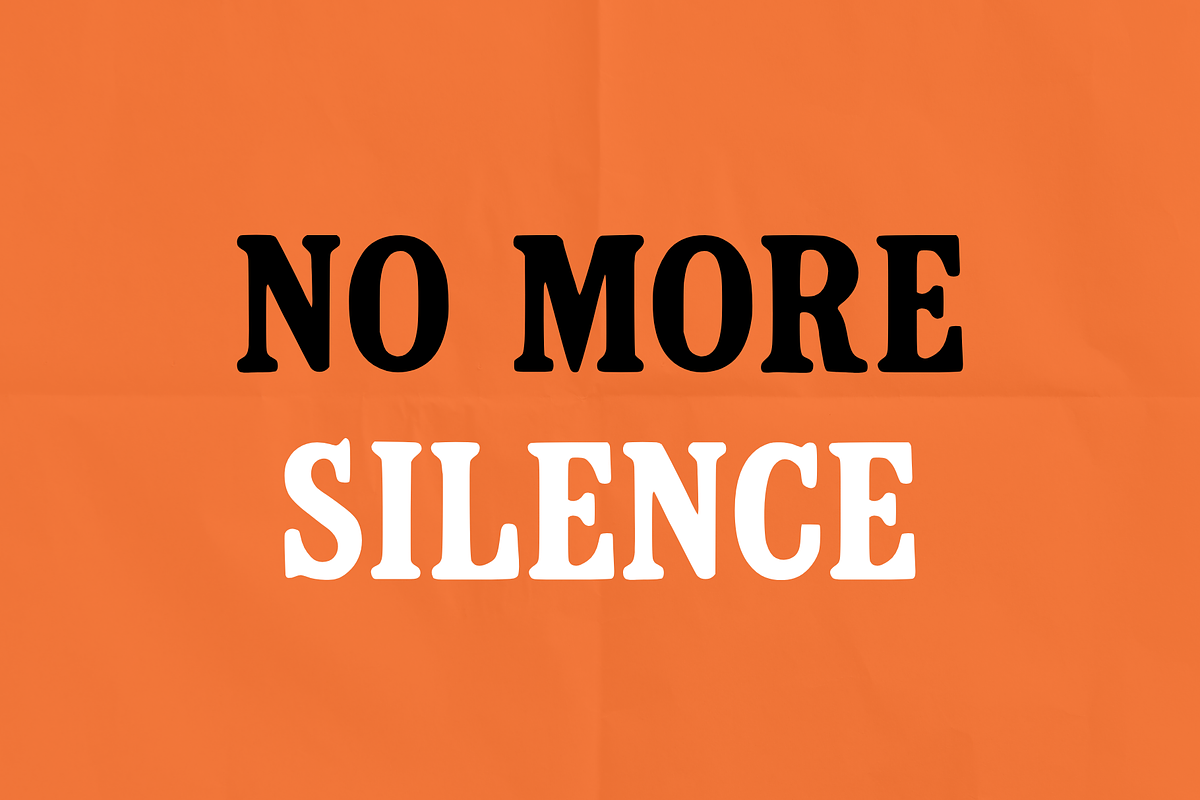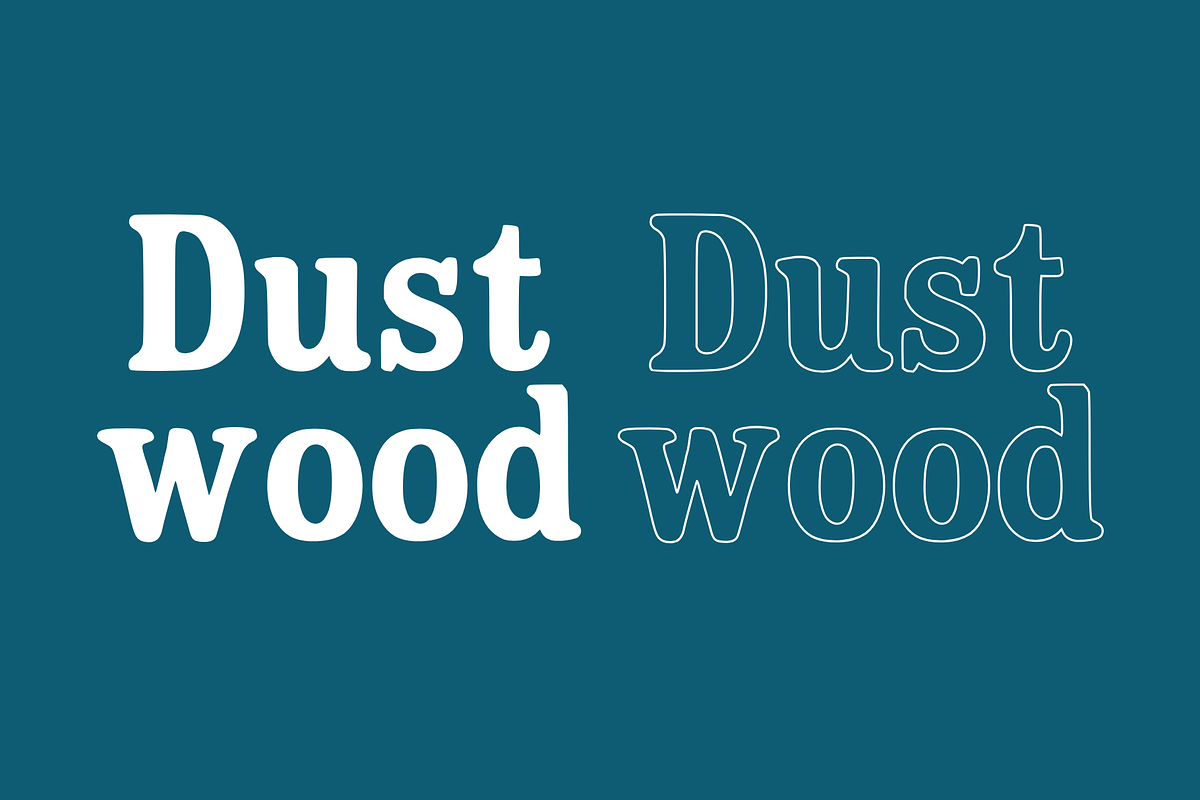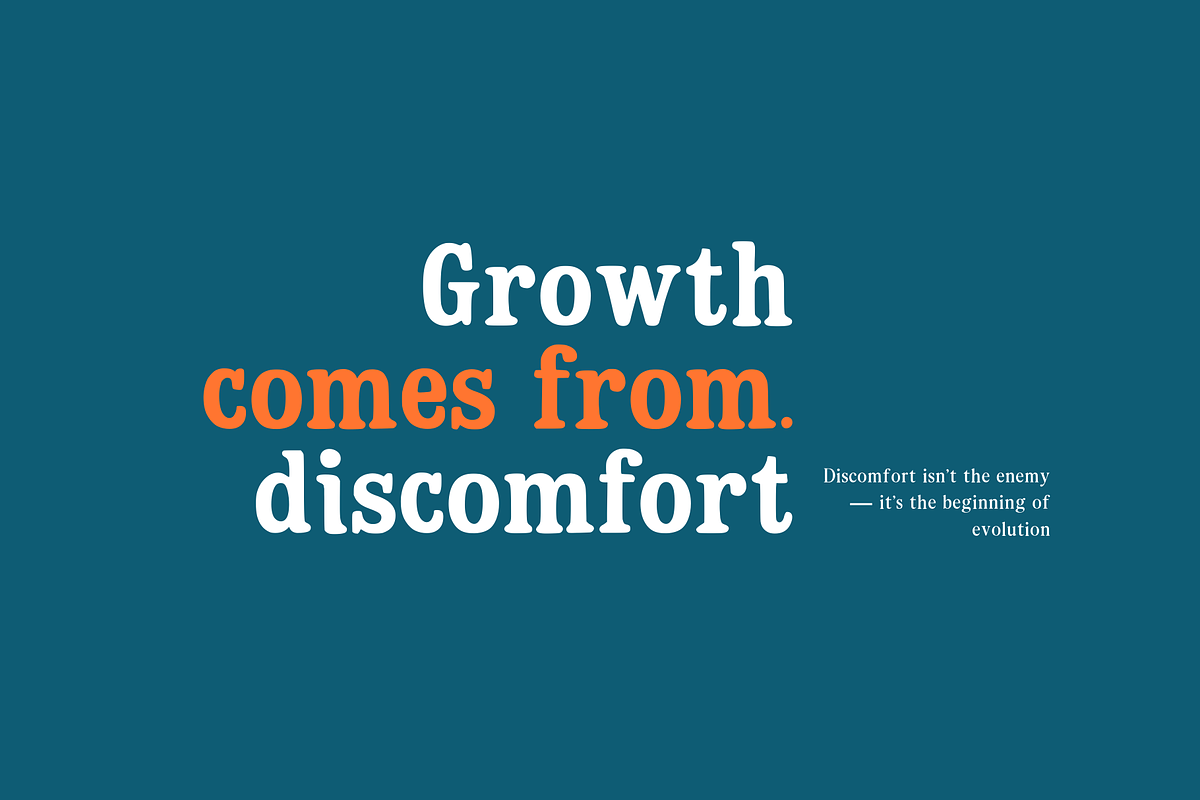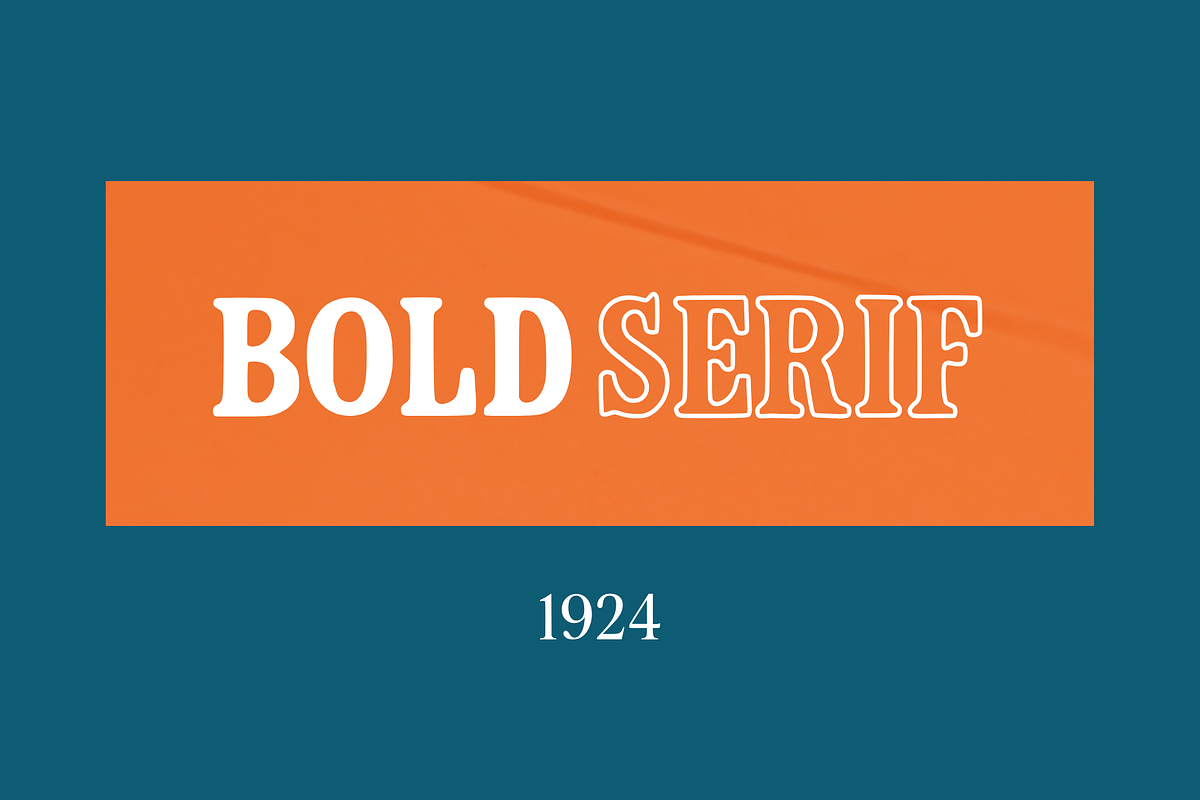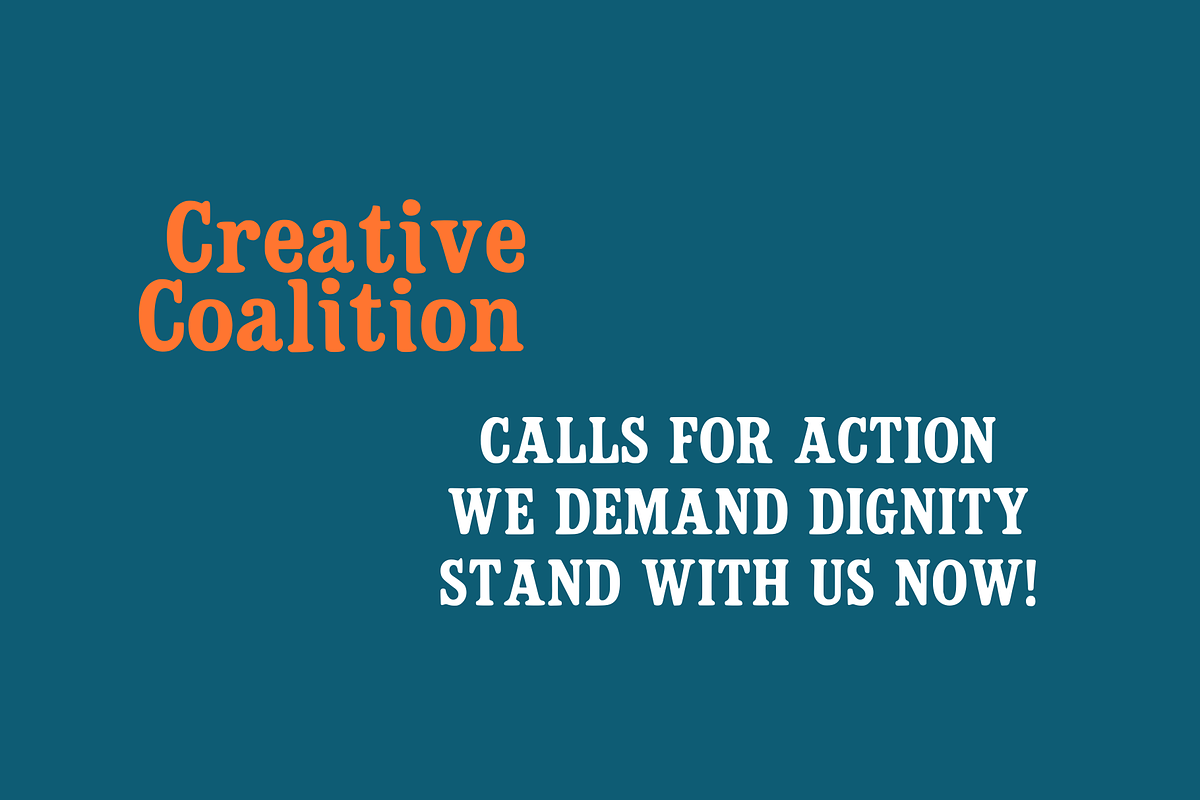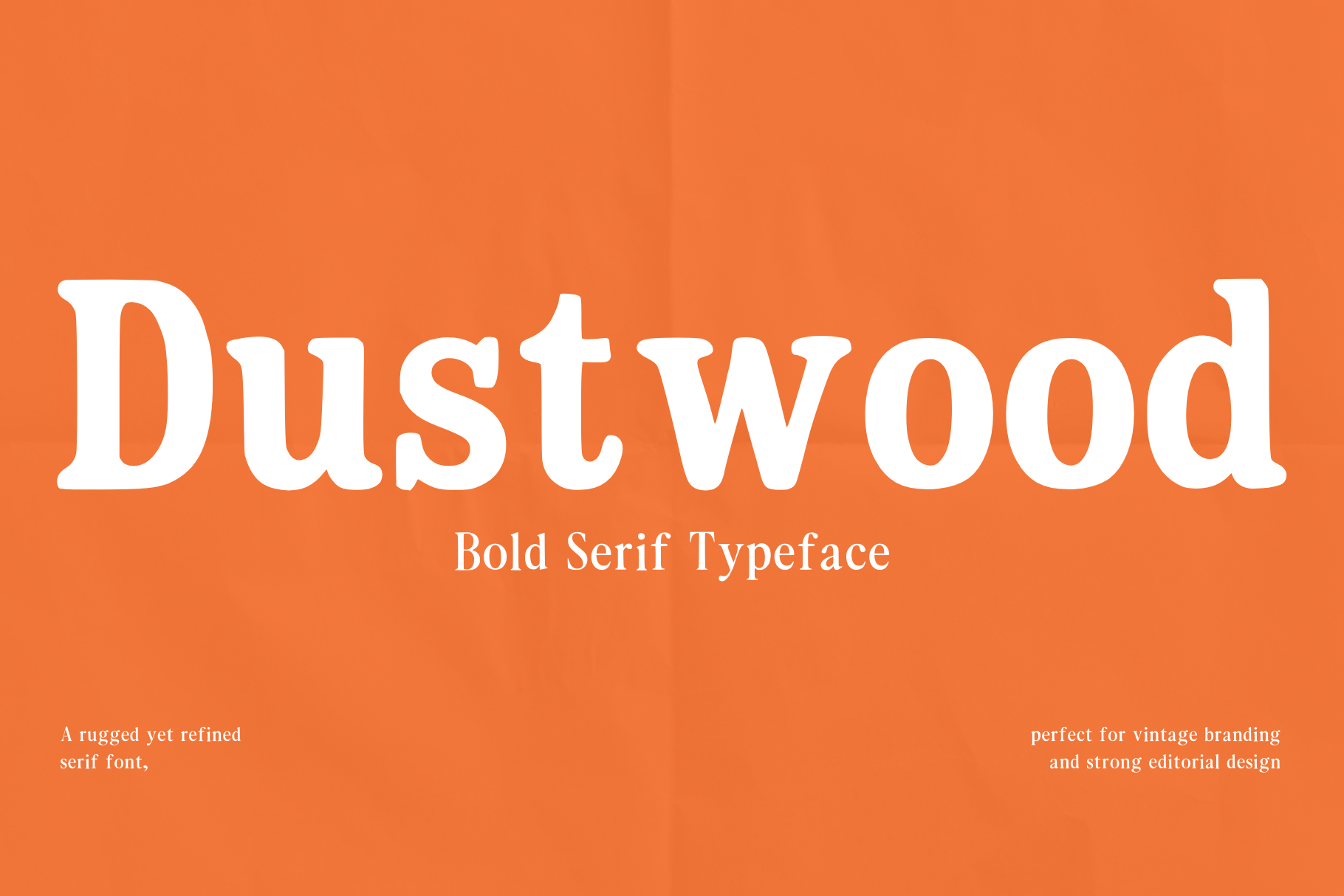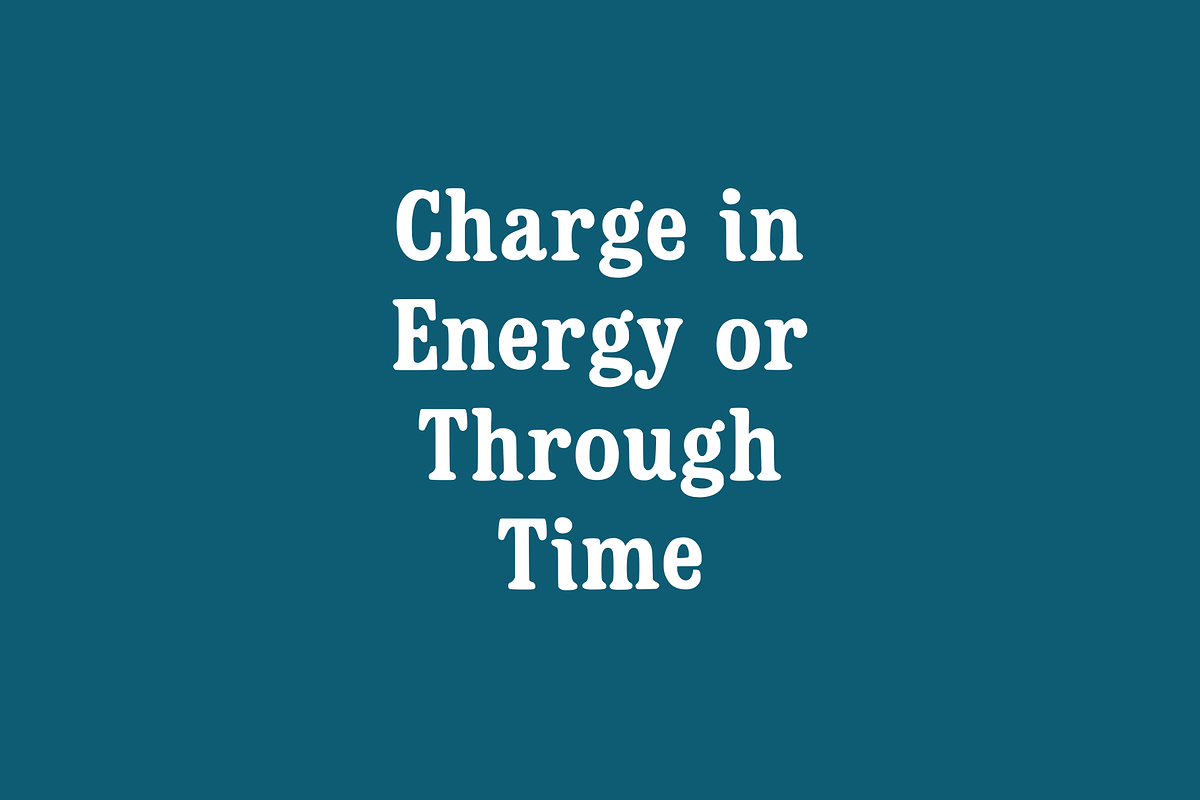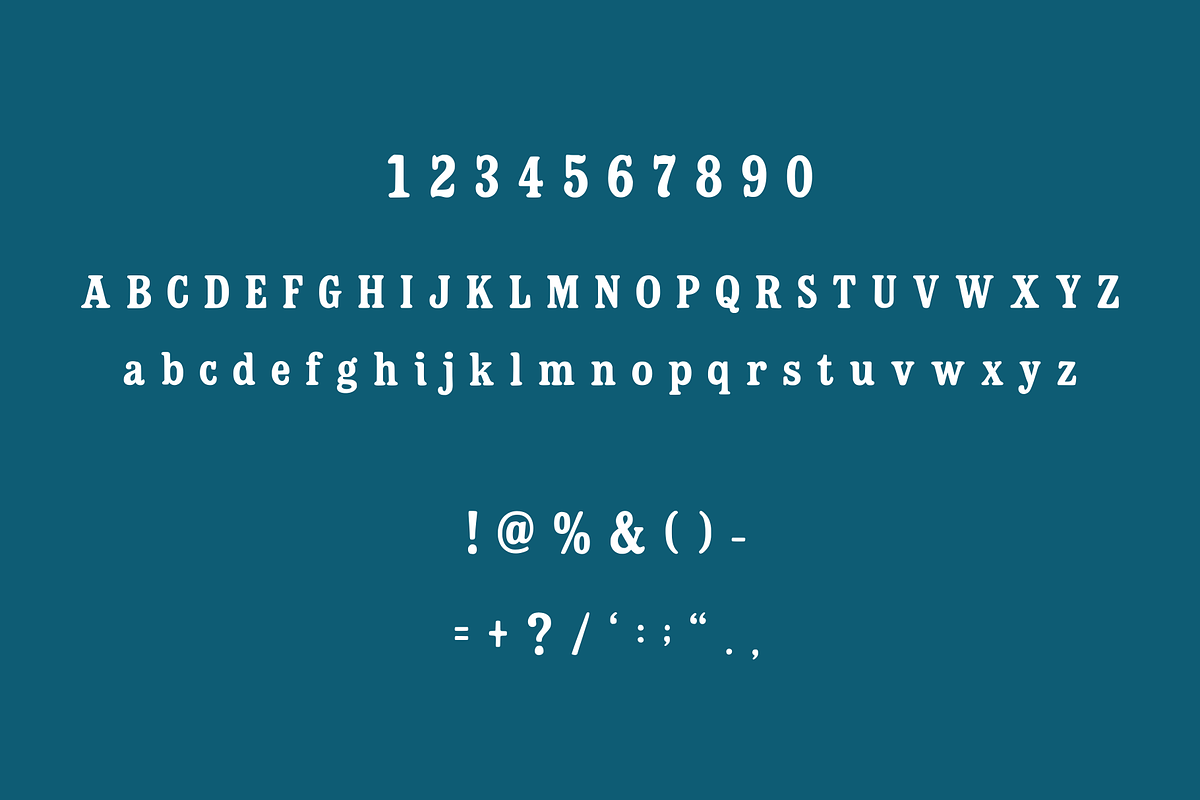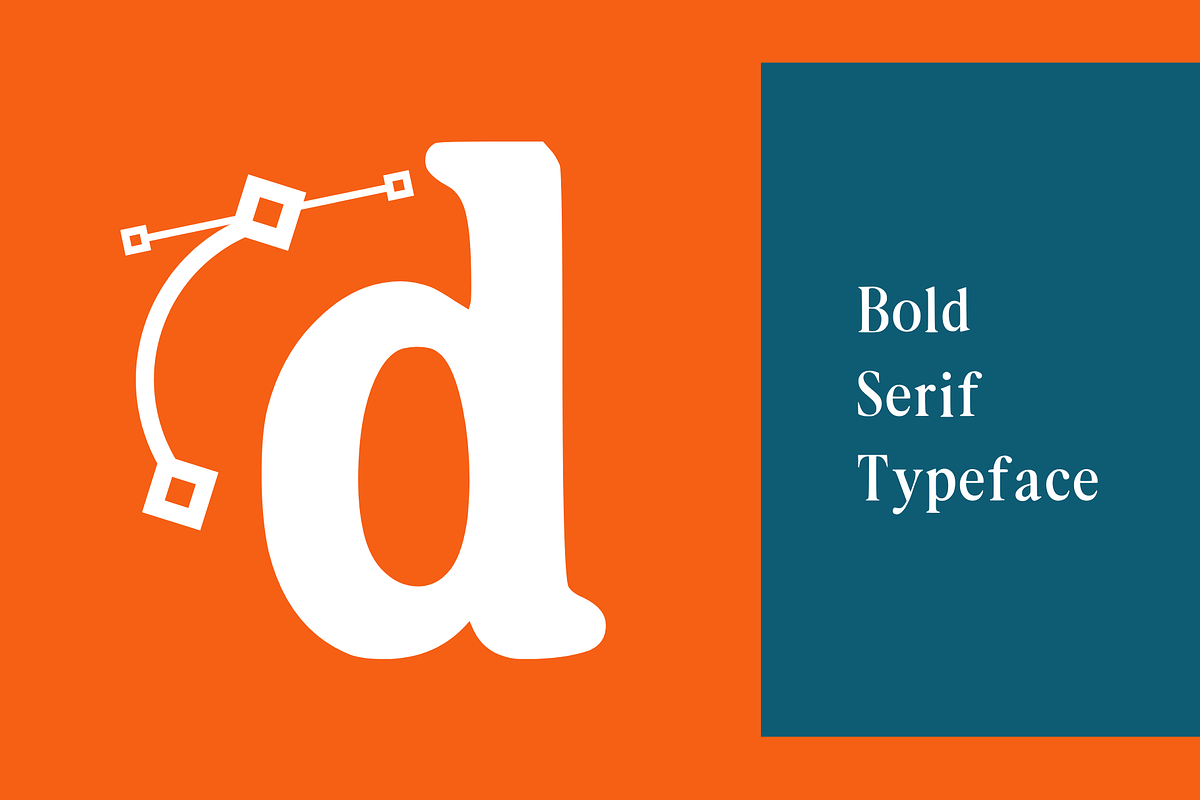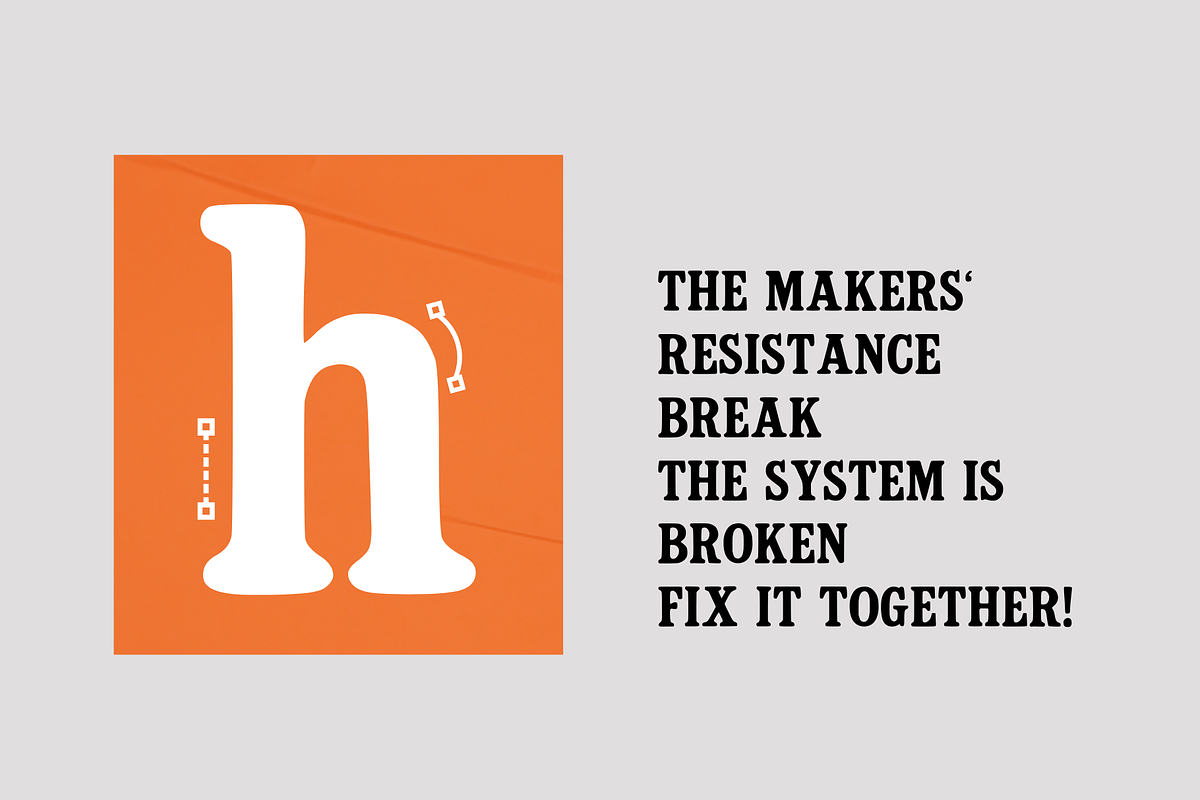
Dustwood Bold Serif Typeface
Dustwood Bold Serif Typeface is a rugged yet refined font that blends vintage charm with modern strength. Ideal for creating impactful designs, this typeface excels in vintage branding, strong editorial layouts, and bold typography projects. Its sturdy letterforms offer a unique balance of ruggedness and elegance, making it versatile for posters, logos, and print media. Perfect for designers seeking a timeless aesthetic with a contemporary edge, Dustwood delivers durability and visual appeal across diverse creative applications